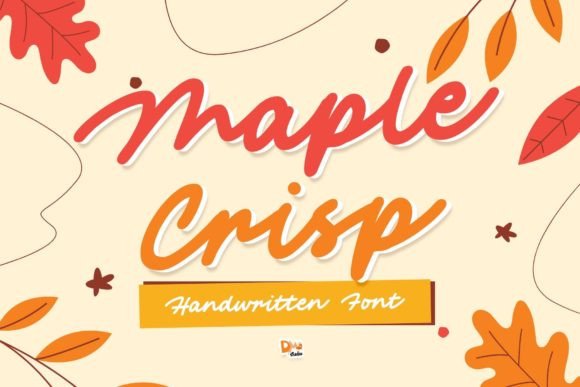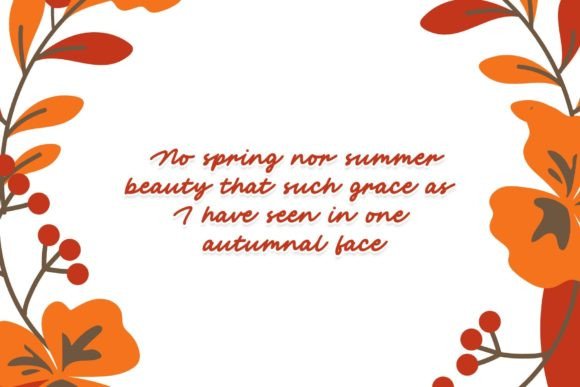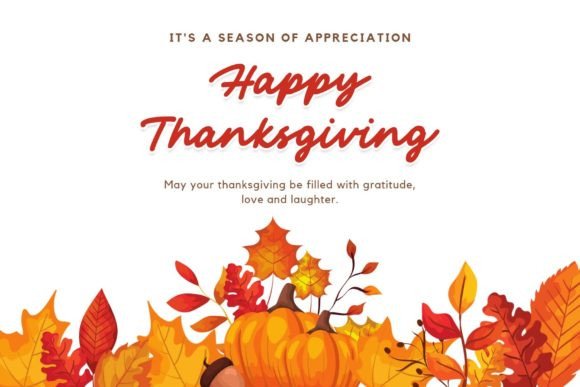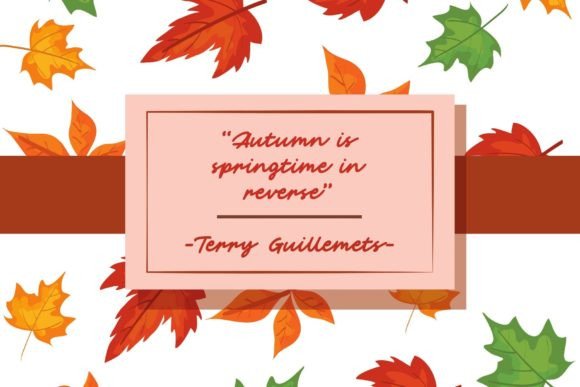
About Maple Crisp Font
Maple Crisp is a beautifully crafted handwritten font that embodies a casual, simple, and gorgeous aesthetic. With its well-designed elements, this font is a versatile choice for a wide range of design projects. Incorporate Maple Crisp into your creative ideas, and witness how it effortlessly elevates them to an outstanding level.
The casual and simple nature of Maple Crisp makes it a fitting choice for various design applications. Whether you’re working on branding, social media graphics, posters, invitations, or any other project, the font’s straightforward yet elegant style adds a touch of charm and readability.
The versatility of Maple Crisp extends to its adaptability in different design contexts. Its simplicity allows it to seamlessly integrate into diverse visual themes, making it a reliable choice for various creative endeavors. Whether your design concept is modern, classic, or eclectic, Maple Crisp enhances the overall aesthetic.
Incorporating Maple Crisp into your projects can contribute to a clean and uncluttered design, making it suitable for conveying messages with clarity and simplicity. This is particularly beneficial for applications like product packaging, where readability and a straightforward design are crucial.
Maple Crisp’s well-designed handwritten elements bring a personal and human touch to your designs. The font’s elegance adds a touch of sophistication, making it suitable for projects that require a balance of simplicity and refinement.
Overall, Maple Crisp is more than just a font; it’s a design asset that enhances your creative ideas with its well-crafted and versatile handwritten style. Whether you’re working on branding, digital graphics, print materials, or any other design project, Maple Crisp’s casual simplicity will contribute to making your creations outstanding and visually appealing.